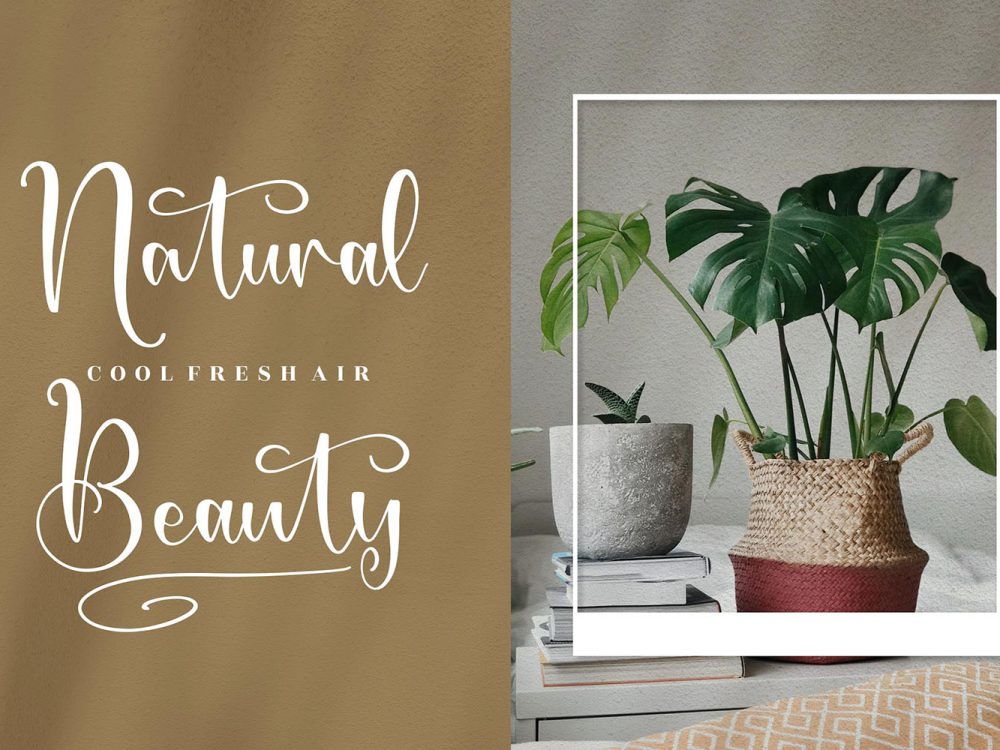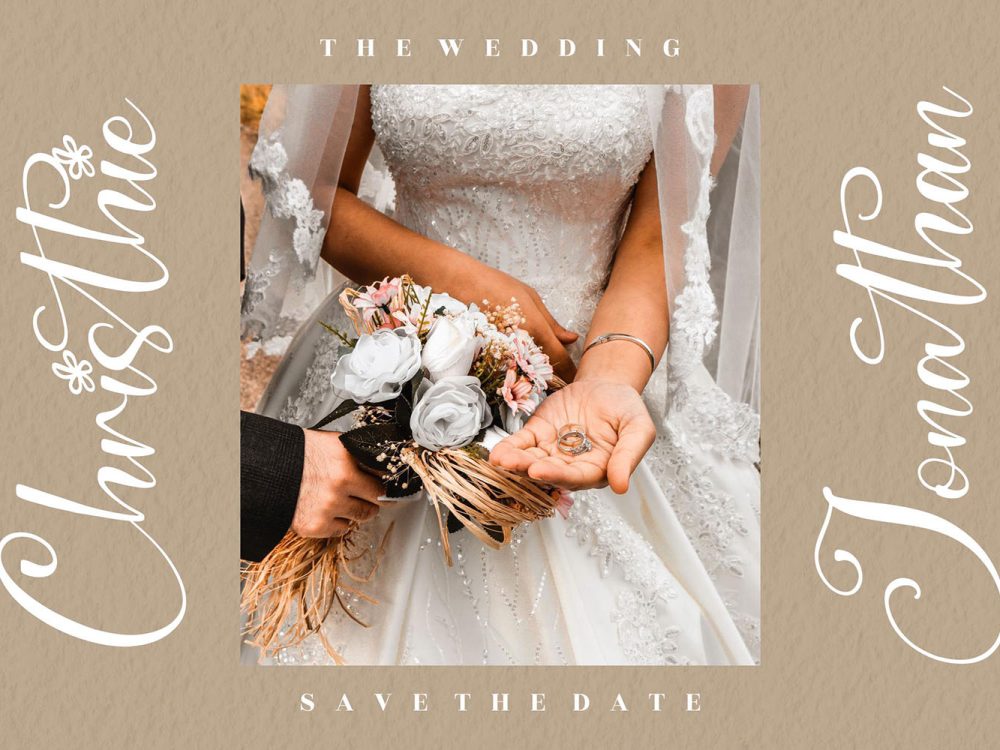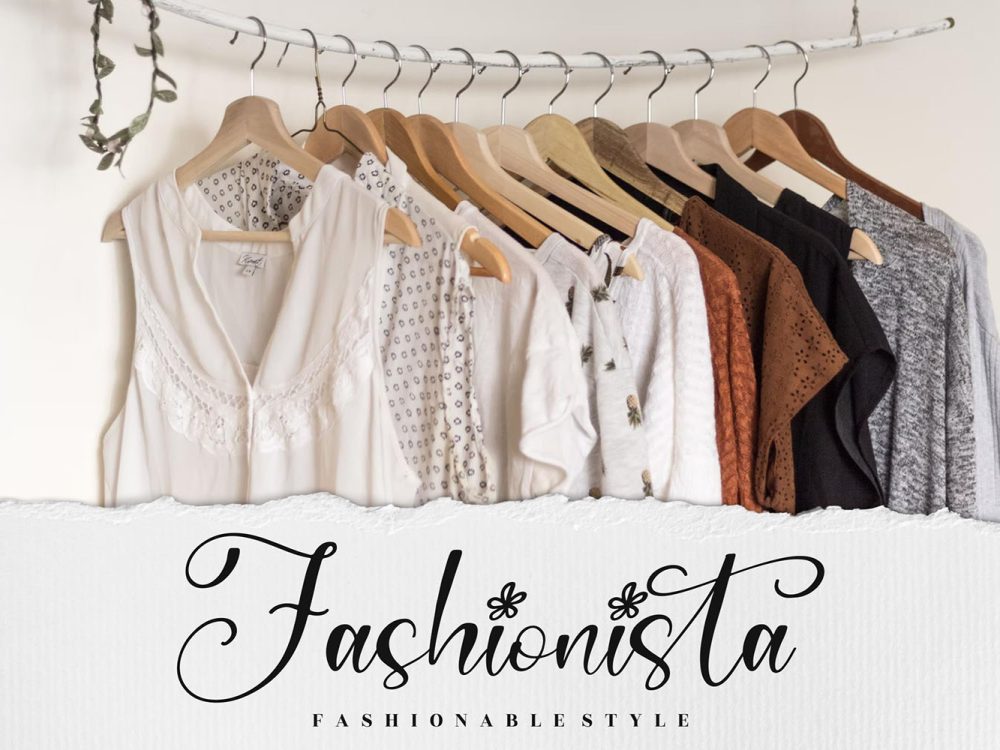
Monkista Free Font, an exquisite script font, is a versatile choice for a wide array of projects. Whether you’re working on logos, branding projects, homeware designs, product packaging, mugs, quotes, posters, shopping bags, t-shirts, book covers, name cards, invitation cards, greeting cards, labels, photography, watermarks, special events, or any other charming endeavor seeking a touch of beautiful script, Monkista has you covered. If you like it don’t forget to check out the full version.